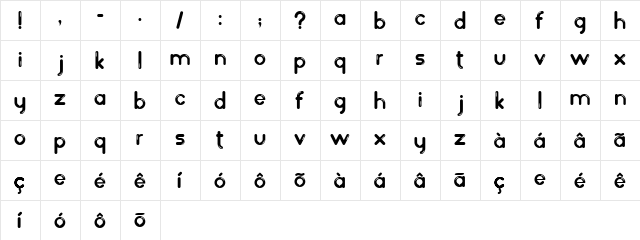
balonez fantasia br Regular
Design Context for balonez fantasia br Typeface
balonez fantasia br offers clean, dependable letterforms without strong stylistic allegiance, making it a practical choice for designers who need flexibility.